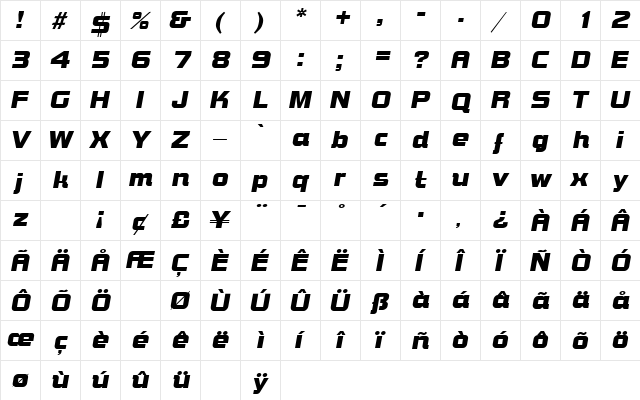
Bolt Italic
Design Context for Bolt Typeface
Bolt takes a measured approach to typography — its balanced proportions and neutral character make it a reliable workhorse for both digital and print work. The dynamic lean of this cut emphasises speed and emphasis in any layout.
Pro Tip: Try Bolt for annotation and caption copy alongside an upright companion — the contrast in angle creates a dynamic but ordered typographic system.